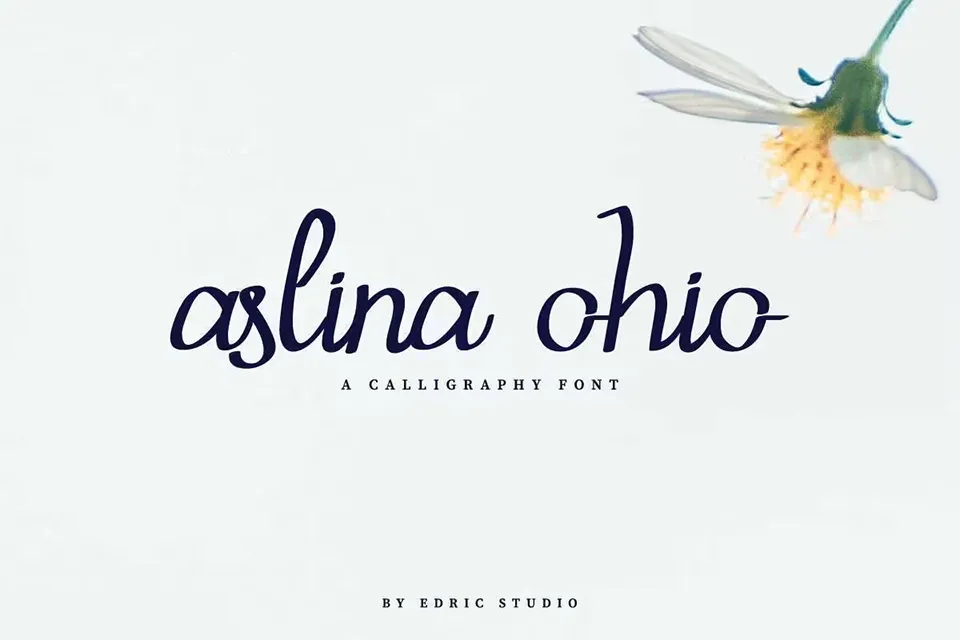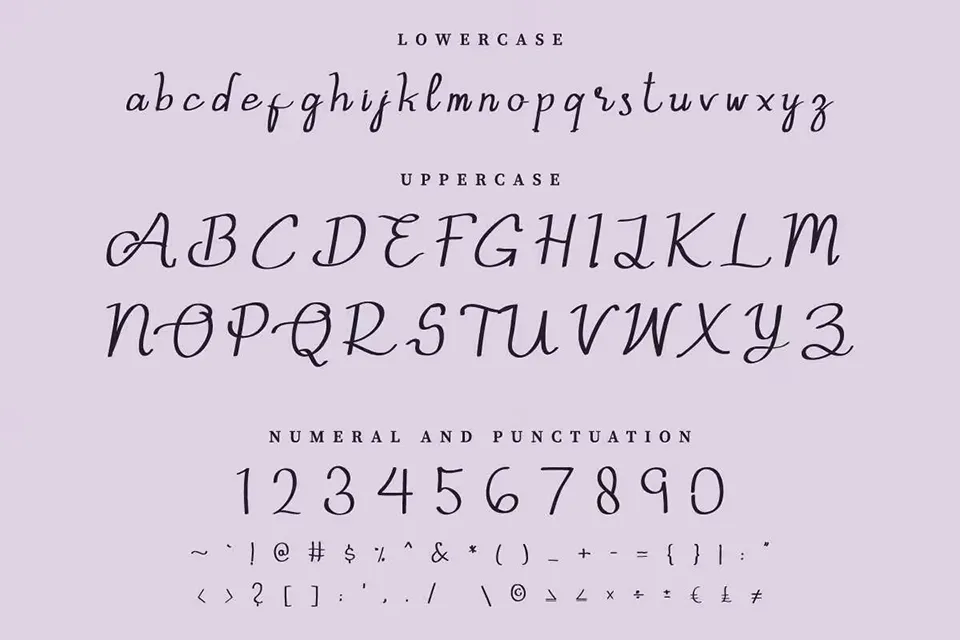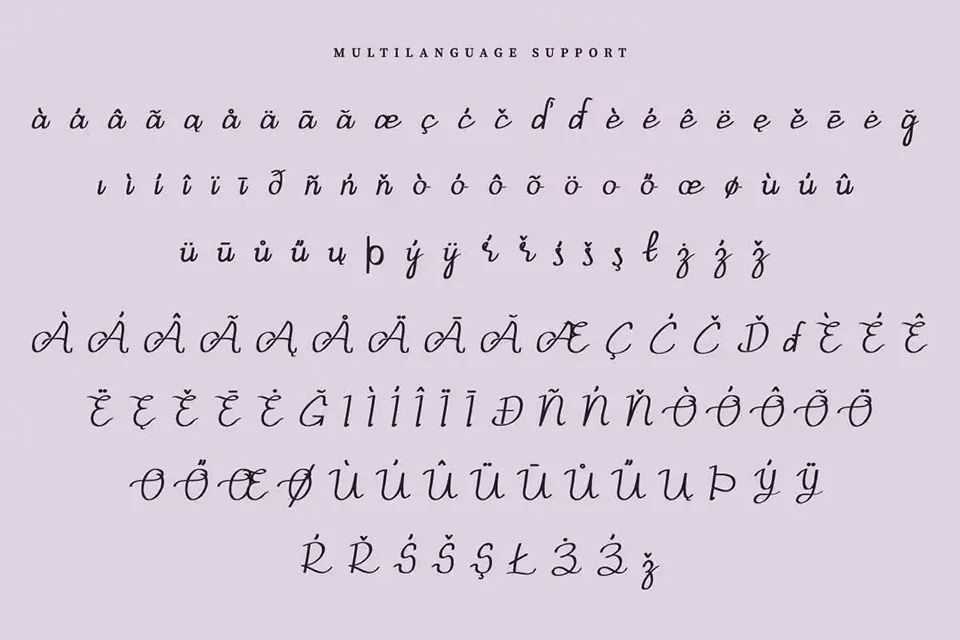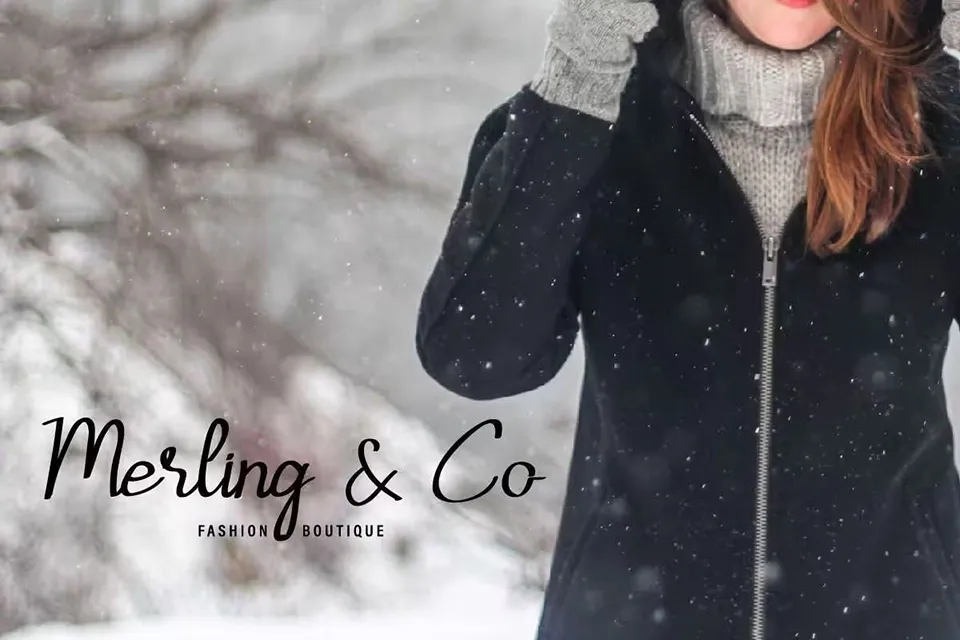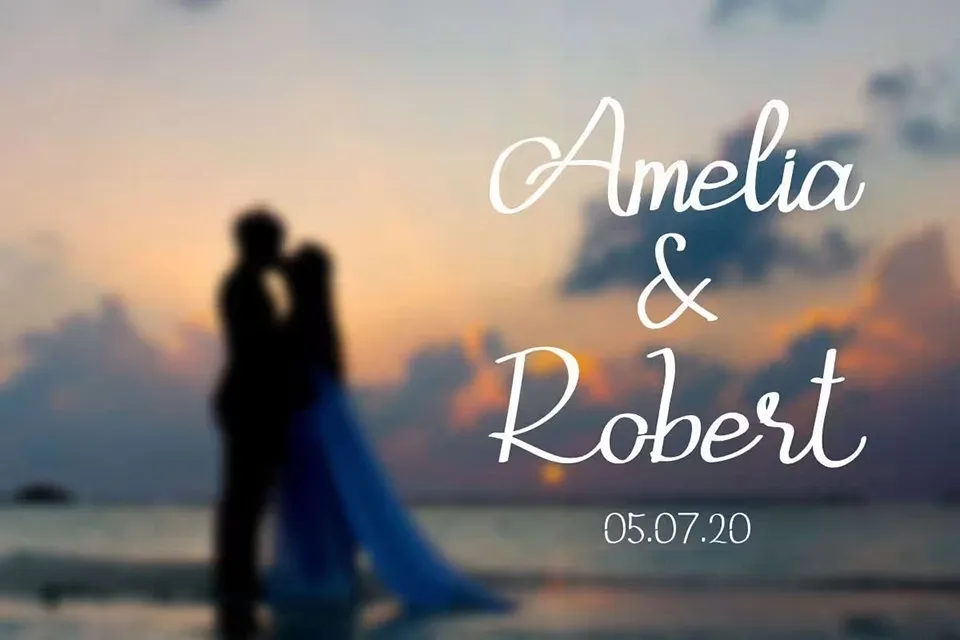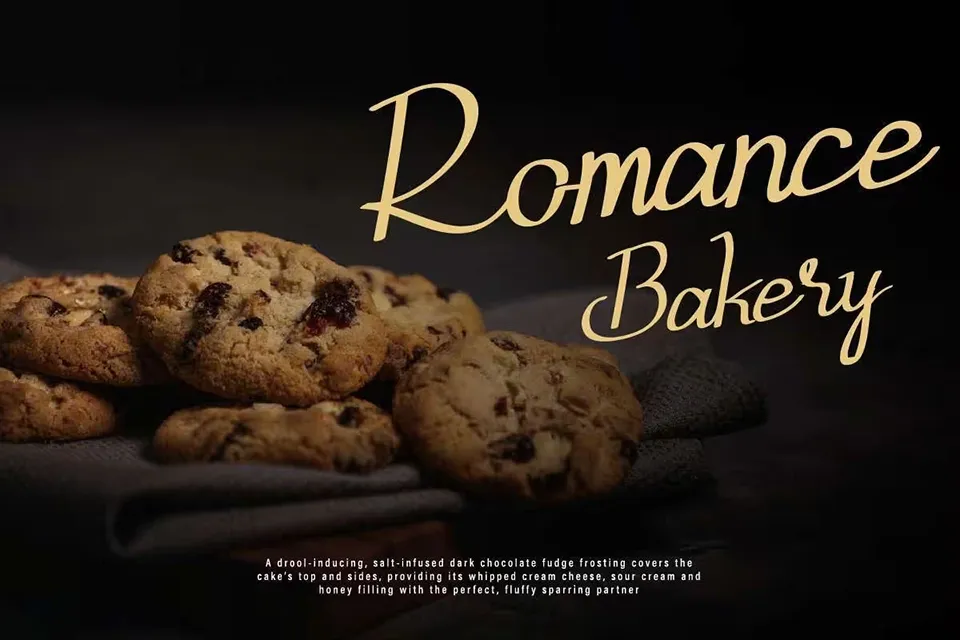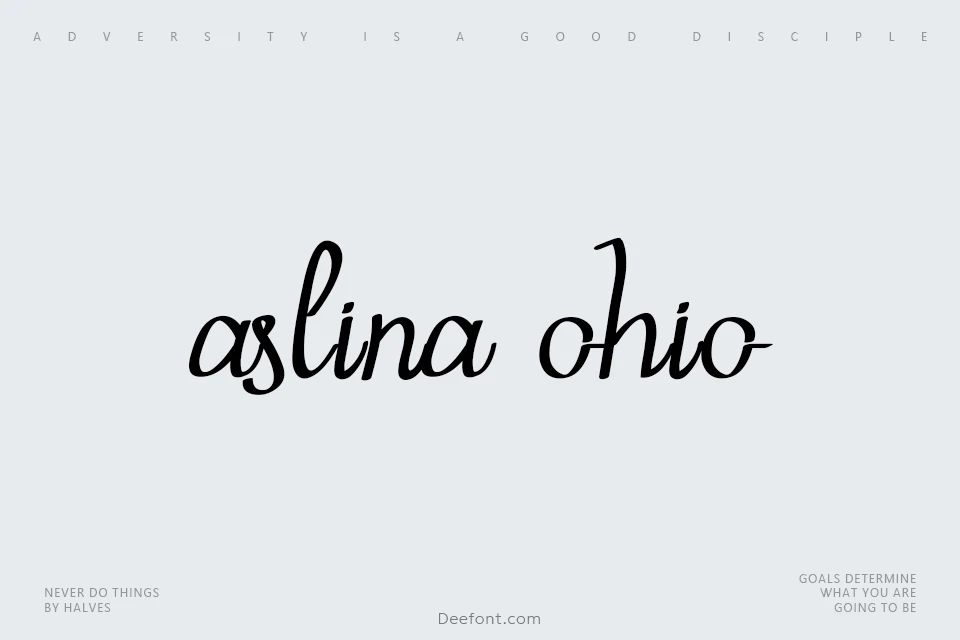
Aslina Ohio Font
Aslina Ohio Calligraphy Font is an exclusive calligraphy script typeface with a brush style, featuring a stunning character set that is perfectly managed for elegant and creative design projects. Designed for versatility, it brings a charming and handcrafted touch to your typography.